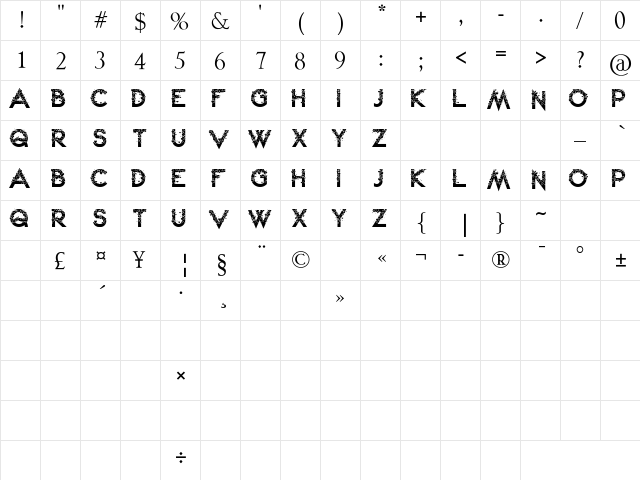
Lovely Kei Regular
Design Context for Lovely Kei Typeface
Lovely Kei is a composed and adaptable typeface that performs quietly and consistently across a wide range of design contexts.